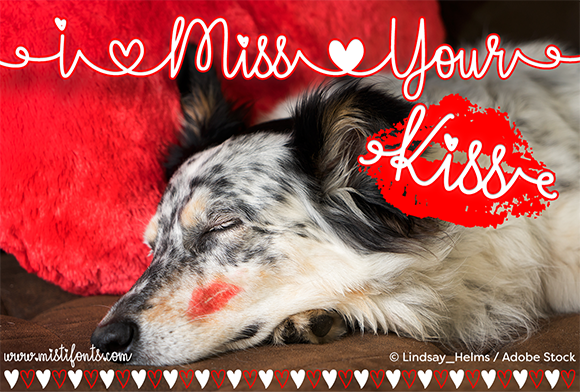
I Miss Your Kiss Font
About I Miss Your Kiss Font
Special Symbols
Type * (asterisk) for the lips
Type (back slash) font the open heart connection
Type ^ (caret) font the solid heart connection
Type _ (underscore) for swash that connects letters
Type | (vertical bar) for solid heart
Type ~ (tilde) for open heart
Type [] (brackets) for small swashes: [Kiss]
Type {} (curly braces) for medium swashes
Type () (parentheses) for big swashes